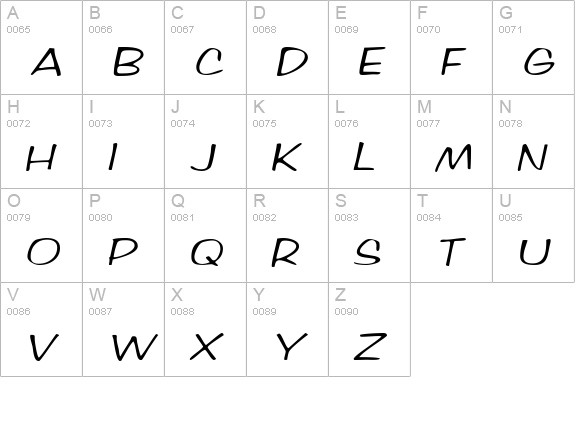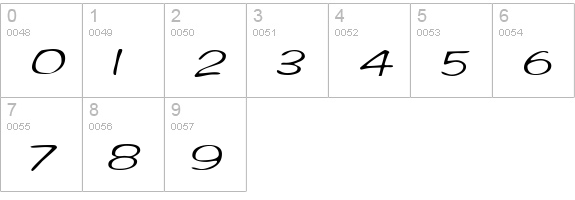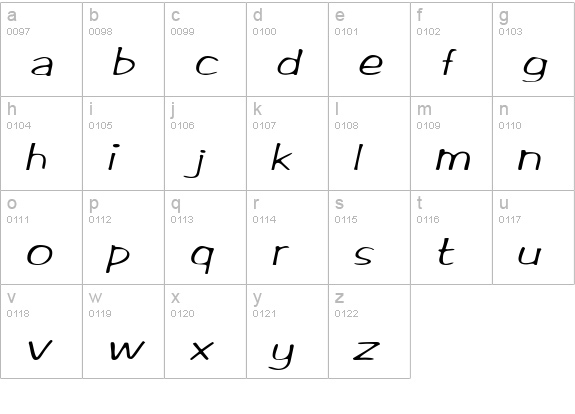
RifrafScriptSSK Italic Font Details
RifrafScriptSSK Italic is a distinctive, italic variant in the RifrafScriptSSK typeface family \xE2\x80\x94 well suited to design and typography projects.
RifrafScriptSSK Italic font is a beautifully designed typeface that exudes elegance and sophistication. Its graceful curves and slanted appearance add a touch of flair to any project. This font is perfect for adding a touch of sophistication to invitations, logos, and branding materials. With its unique and stylish look, RifrafScriptSSK Italic font is sure to make a lasting impression. Its smooth lines and gentle strokes create a sense of movement, making it ideal for projects that require a sense of dynamism and energy. What makes RifrafScriptSSK Italic font even more enticing is that it is available for free. Yes, you read that right! This stunning font can be freely downloaded at FontsMarket.com, giving you the opportunity to enhance your designs without breaking the bank. Whether you're a professional designer looking to add a touch of elegance to your projects, or a creative individual seeking to make a statement, RifrafScriptSSK Italic font is the perfect choice. Its versatility and beauty make it a top pick for a wide range of design applications. Don't miss out on this fantastic opportunity to elevate your designs with the stylish RifrafScriptSSK Italic font. Download it for free now at FontsMarket.com and let your creativity shine!